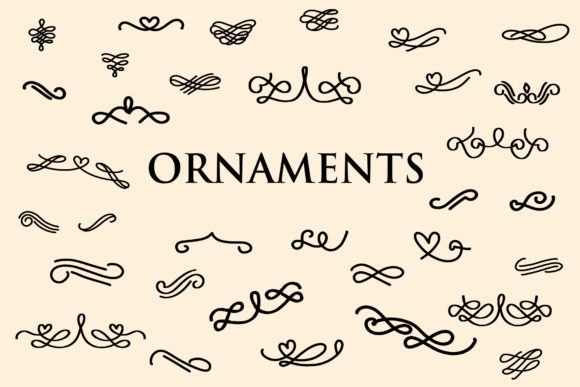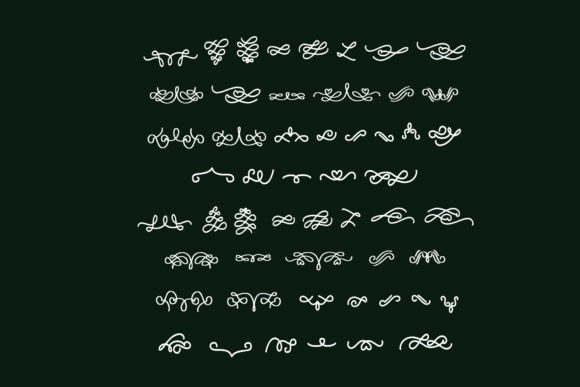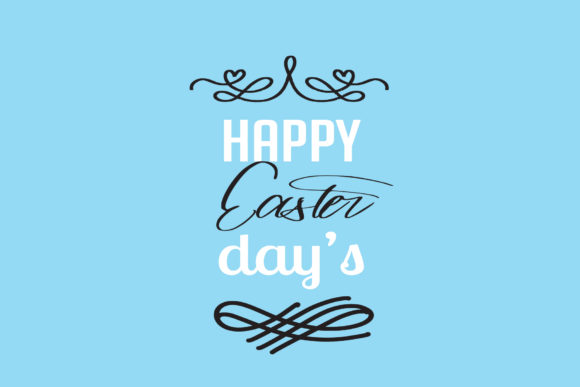
About Ornaments Font
“Ornaments” is a useful and unique dingbats font that can elevate your crafting, digital designing, presentations, and greeting card making projects. Here are some ideas on how you can make the most of this font:
1. Crafting: Incorporate the ornaments from the font into your crafting projects. Whether you’re creating handmade cards, scrapbook layouts, or DIY home decor, the unique symbols and designs from “Ornaments” can add a special touch. Use them as borders, accents, or embellishments to enhance your creations.
2. Digital Designing: Add a touch of elegance and sophistication to your digital designs using the “Ornaments” font. Use the symbols as decorative elements in your website design, social media graphics, or digital invitations. The unique and intricate designs will make your designs stand out and give them a polished look.
3. Presentations: Enhance your presentations by incorporating the “Ornaments” font. Use the symbols as decorative dividers between slides, as bullet points, or as frames for images or text. The unique and eye-catching nature of the symbols will add visual interest and make your presentations more engaging.
4. Greeting Cards: Create beautiful and unique greeting cards using the “Ornaments” font. Use the symbols as focal points or decorative elements on the front or inside of the cards. Whether you’re designing birthday cards, thank you cards, or holiday cards, the unique designs from the font will make your cards stand out.
5. Typography and Lettering: Explore the artistic possibilities of “Ornaments” by using the symbols to create custom typography and lettering. Combine different symbols to form decorative letters or incorporate them into your hand-lettered designs. The intricate details and unique shapes of the symbols will add flair and creativity to your lettering projects.
6. Stationery Design: If you’re designing stationery items such as notepads, envelopes, or letterheads, consider incorporating the “Ornaments” font. Use the symbols as decorative elements or borders to add a touch of elegance and uniqueness to your stationery designs.
Remember to experiment with different combinations of symbols and explore the versatility of the “Ornaments” font. It offers a range of unique designs that can be adapted to suit various creative projects. Whether you’re crafting, digital designing, making presentations, or creating greeting cards, the “Ornaments” font will add a special touch and make your creations perfect.
In summary, the “Ornaments” dingbats font is a useful and unique font that can enhance your crafting, digital designing, presentations, and greeting card making projects. With its decorative symbols and designs, it offers a variety of creative possibilities to make your creations stand out. Enjoy using the font to add elegance and sophistication to your designs!